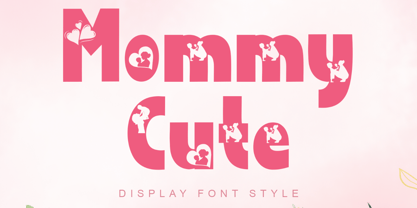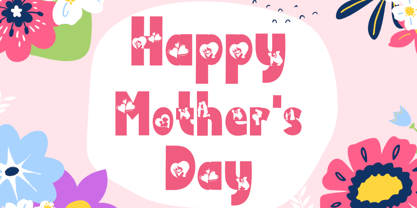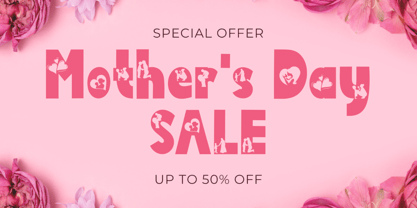
Mommy Cute
by Yoga Letter
The Mommy Cute Font Family was designed by Isroni Yoga Prasetya and published by Yoga Letter. Mommy Cute contains 1 styles. More about this family
"Mommy Cute" is a cute and unique display font. This font is equipped with uppercase, lowercase, numerals, punctuations and multilingual support. It is very suitable for posters, mother's day, summer, spring, holiday, vacations, logos, christmas, easter, branding and others.
Designers: Isroni Yoga Prasetya
Foundry: Yoga Letter
Mommy Cute